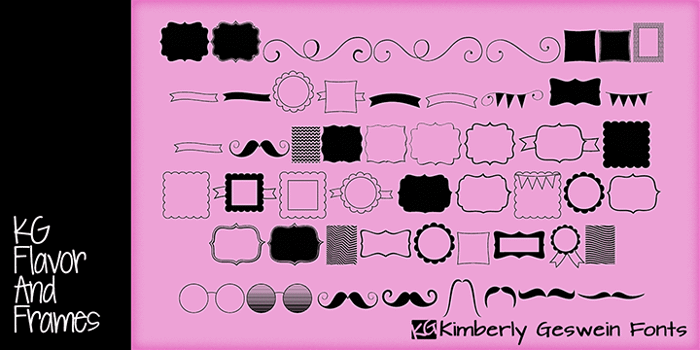
KG Flavor and Frames Font
Adorable accessories and accents- fun mustaches, swirls, borders, patterns, chevrons and more! Please pay for commercial use! :)
TOOOO cute! I dig the staches lol 😄